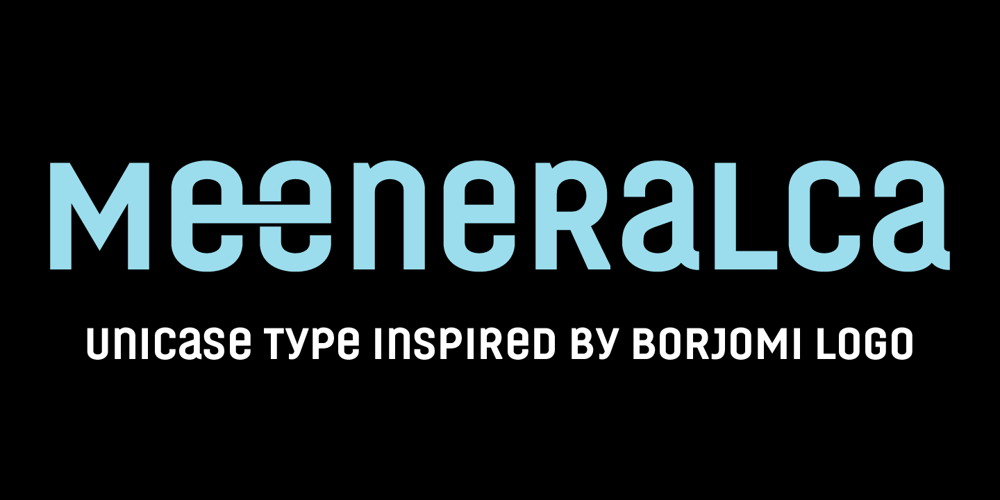
Meeneralca 4F Font Family was designed by Sergiy Tkachenko and published by 4th february. Meeneralca 4F contains 1 styles and family package options. The design of type Meeneralca 4F was inspired by the logo of the mineral water Borjomi from Georgia. The word “Meeneralca” is the short (slang) version for “mineral water”.